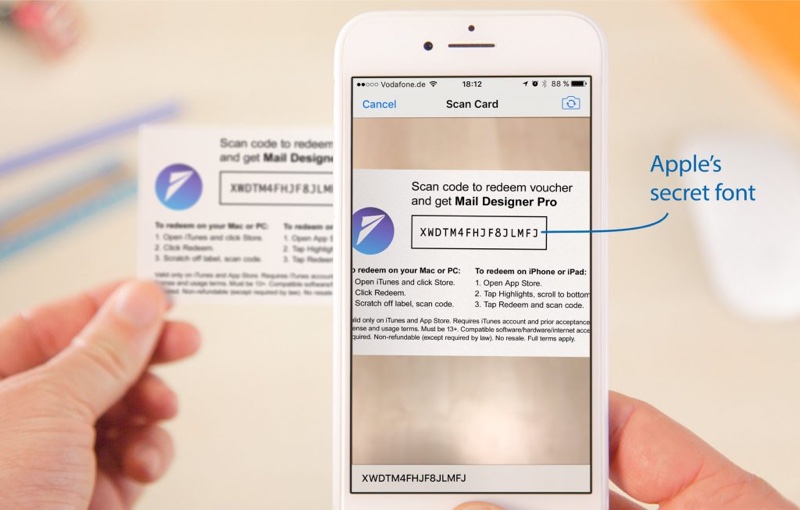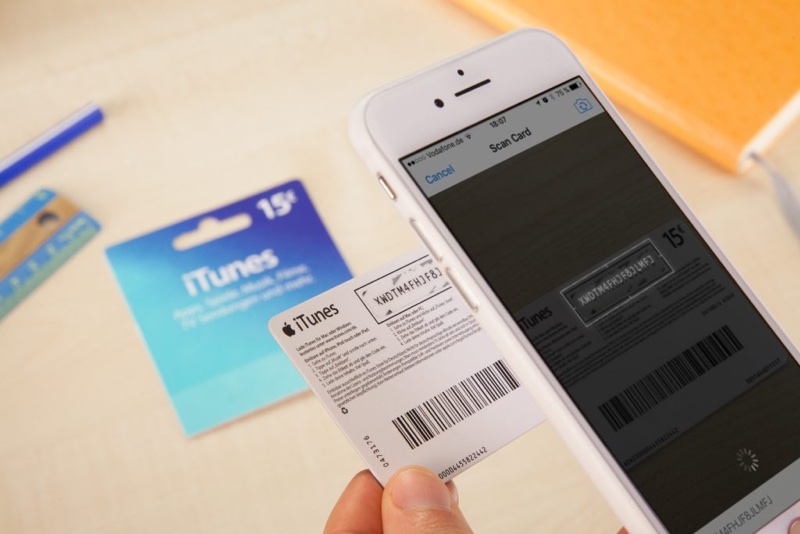
When you purchase an iTunes gift card and redeem it in the App Store, the camera on your iPhone, iPad, or Mac can scan the code on the card to recognize it automatically, saving you the time of typing the numbers in manually.
Equinux, the company behind Mail Designer Pro 3, dug into how Apple's promo code engine works in an effort to make their own scannable cards, and the results are quite interesting. As it turns out, the scanning feature in the App Store is tuned to recognize two things: a unique, hidden font and the dimensions of the box around it.
Equinux tried the box alone with a range of fonts like Courier and Monaco, and attempted to identify the unique characteristics of the font to find it, but were unsuccessful. Ultimately, the team realized the font that Apple's using is hidden deep within iTunes.
The breakthrough came when we noticed that when you scan a card with your iPhone, the app briefly displays a "scanned" overlay of the code. This means the font must be embedded in the app somewhere. We tried the same with iTunes on macOS. And voila - the iTunes on Mac behaves the same way.
When you look at some of the other folders inside iTunes, we found a tantalizing plugin called "CodeRedeemer." It showed promise. But alas, no font files there either. The app binary does give a hint of where the heavy lifting is being done: "CoreRecognition.framework."
Equinux outlines the exact font height to use and how to position it within the surrounding box to get Apple's engine to recognize it, details the company uncovered after investing a lot of time in tweaking fonts and the border of the required box.
Equinux even went one step further and created helpful Sketch and Photoshop templates that developers can use to create App Store promo code cards that can be automatically scanned using a device camera and recognized by the App Store.
these fonts can be used to create custom App Store promo code cards that can be scanned in the same way as iTunes gift cards
And I wonder if it won't be long before someone figures out how to use that method for more nefarious purposes...
There's nothing "secret" about using a font this way. There have been specialty fonts that make for easy and reliable optical character recognition (OCR) via "fuzzy" recognition (e.g. using a photograph) for years. Apple may have developed their own font for whatever reason, but there are literally dozens of speciality typefaces that allow for this. Barcodes work this way as well. Microsoft made a stink at one point how you could hold up a MS gift card in front of a Kinect and have it read similarly quickly. It's a bit of a parlor trick, but does save you from having to type in all those letters and numbers.
Is it legal to use the font in your own promo materials?
That's a good point. It's not in Apple's best interest to sue, I think, but this would be an unlicensed use of a font they presumably created.
And I wonder if it won't be long before someone figures out how to use that method is used for more nefarious purposes...
Maybe counterfeit cards that people buy thinking they're loaded already but they could do that now. Making it so it actually loads cash is much more difficult as you have to reverse engineer the algorithm that created the code and then make sure that Apple's systems associate it with a cash amount. So probably not.
LOL tantalizing plugin.
From the developer:
Der Fontengeheim Rahmenwork moos nikt met die Fingerfühlbone verulkt spionweise
geprogrämmt wird.
Only Schablöniefuzz makkt the correct Anschlussing.
Interesting read!
I'm impressed. So few iPhone rumours this year that this non-story actually got posted.
BONUS: How is this a secret font? It's literally on every iTunes gift card.
Quite an interesting workaround - wonder if you'd be able to use them or if Apple will clamp down on its use. I suppose it's not a huge deal.
Is it legal to use the font in your own promo materials?
As one person said, there may be an issue with using Apple's font without permission. Aside from that, I can't see any problem with it. After all, the font doesn't give you any new capabilities - you can still just type in the code. This is just a shortcut for that.
Standardized fonts like OCR-B are designed for a totally opposite purpose: to provide standardization amongst many product manufacturers, many scanner manufacturers, and many retailers.
One is walled garden.
The other is open market.
One is like issuing a special currency that will only work in special cash registers and only one store.
The other is like having the Federal Reserve print millions of banknotes.